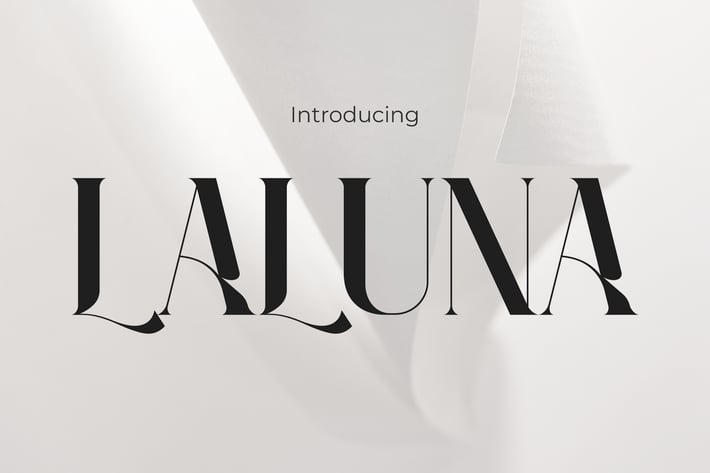
Laluna - Modern Elegance Font
Laluna - Elegant serif
LALUNA is a high-contrast serif display font crafted for editorial designers and luxury brand creatives seeking a timeless yet striking aesthetic. With expressive vertical proportions, razor-sharp terminals, and a hint of modern drama, its letterforms feel both delicate and assertive. LALUNA captures the sophistication of fashion magazines while maintaining functional elegance for headline clarity.
LALUNA effortlessly enhances fashion editorials, magazine layouts, portfolio presentations, or upscale packaging. Whether you're curating a minimalist product line or designing an influencer brand, LALUNA's commanding flair and graceful structure create visual hierarchy and emotional resonance. It's especially effective for hero titles, lookbook covers, and elegant social media banners.
Key Features :
Timeless Serif Character
• Modern vertical contrast and sharp terminal finishes
• Thin-to-thick strokes for a luxe, editorial vibe
• Feminine, stylish, and high-fashion energy
Professional Design-Ready
• Optimized for large headlines and medium-length display text
• Ideal for fashion spreads, elegant branding kits, and digital magazines
• Balanced spacing and proportions for readability and impact